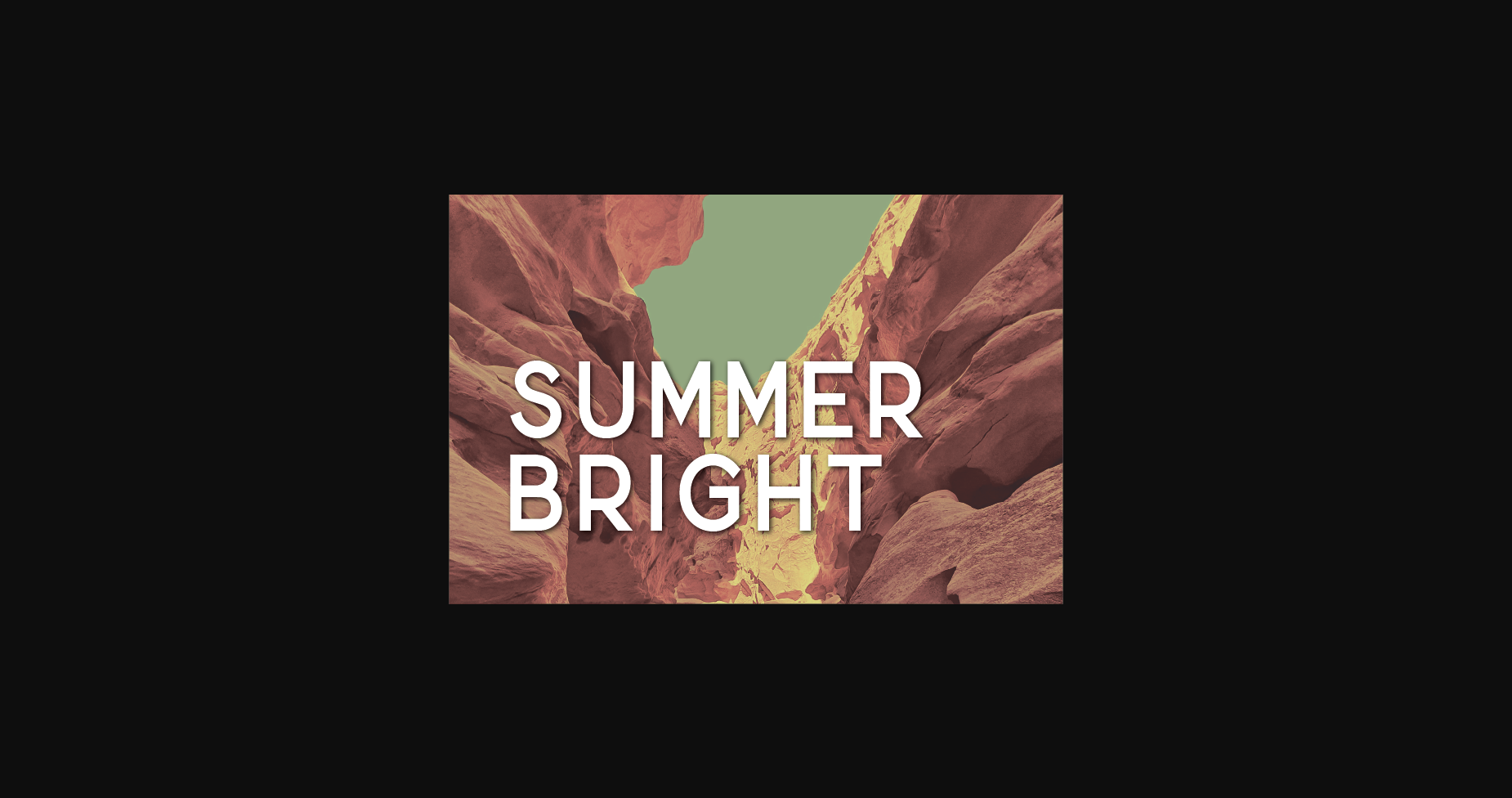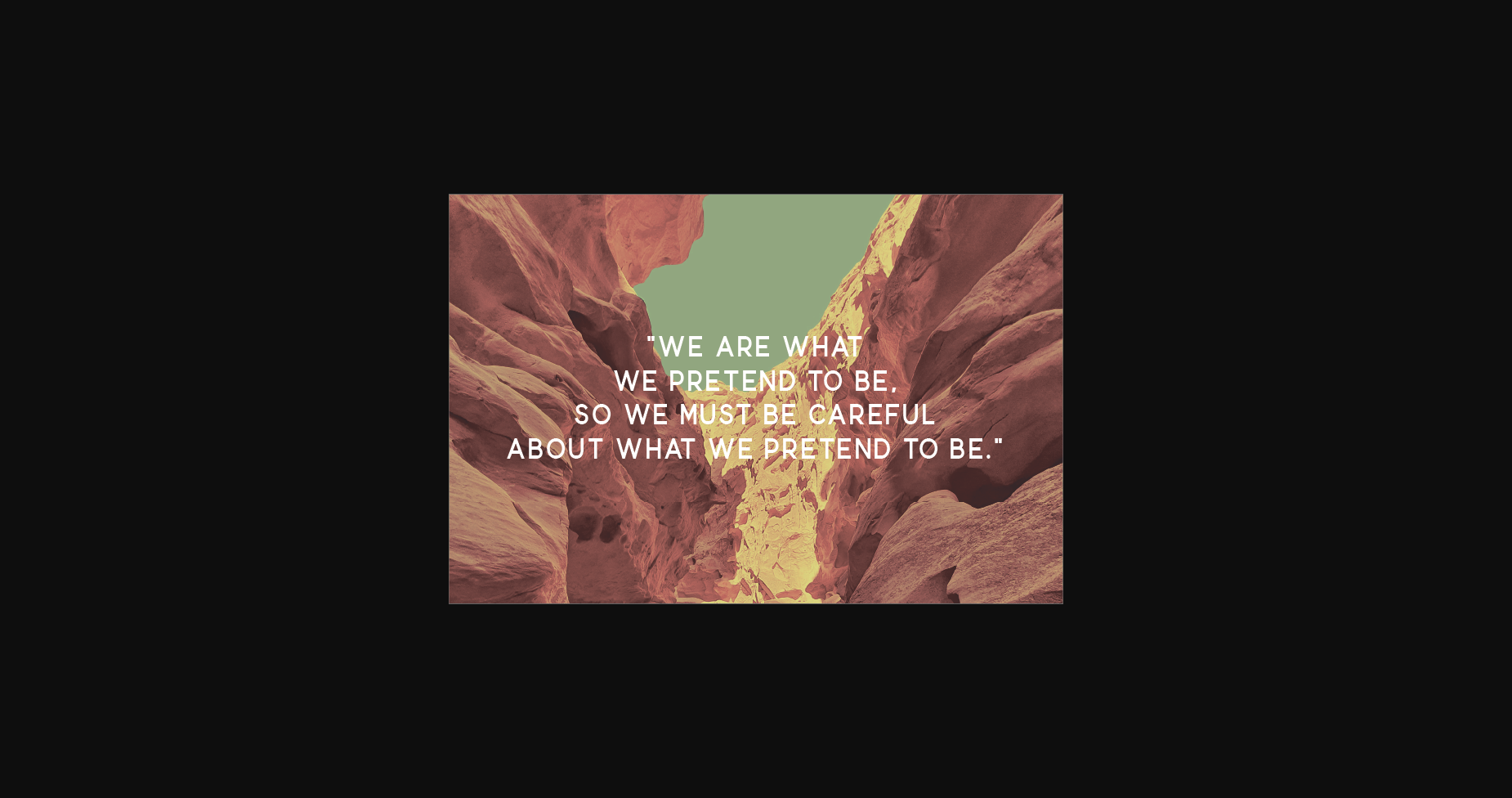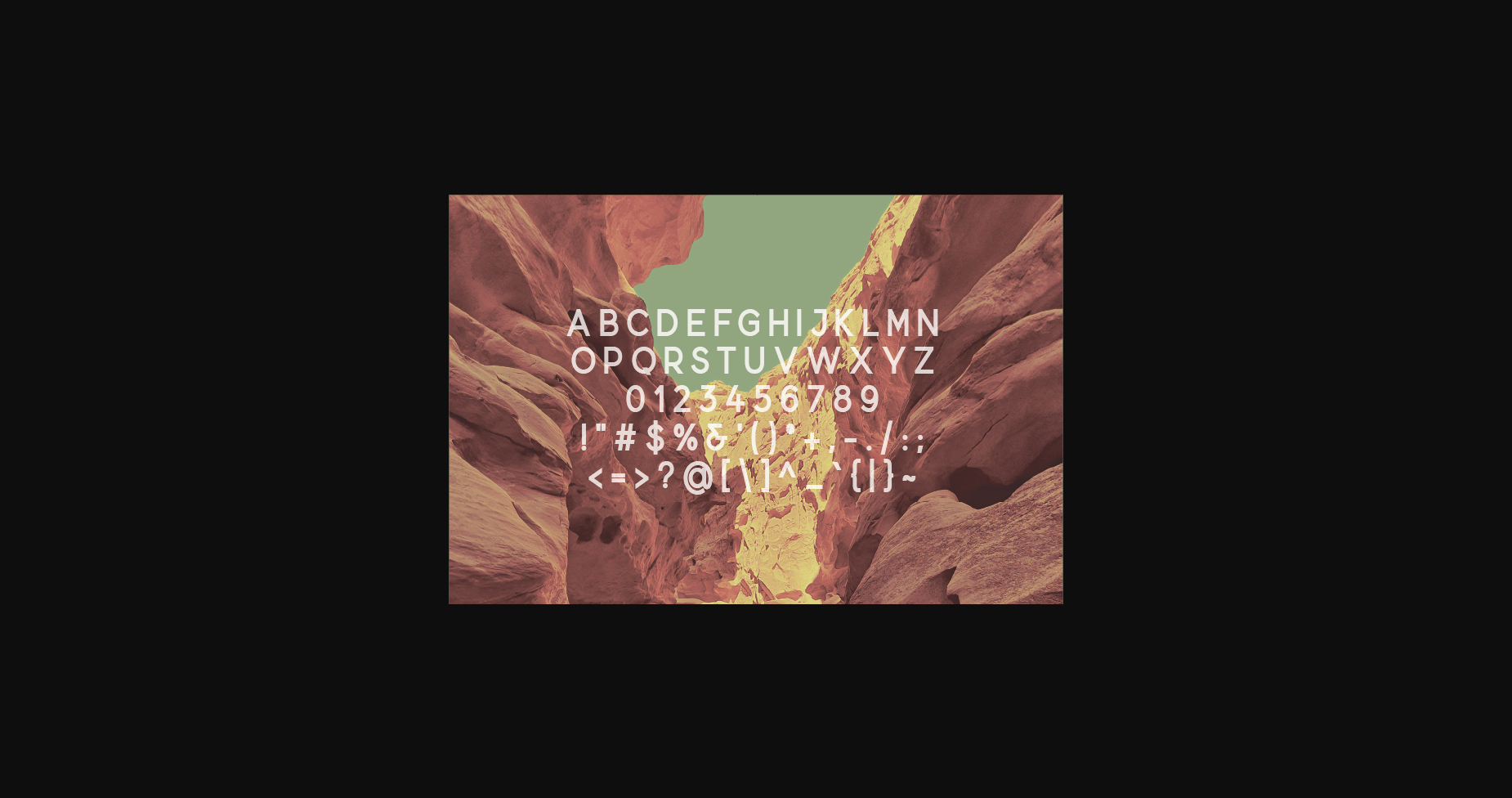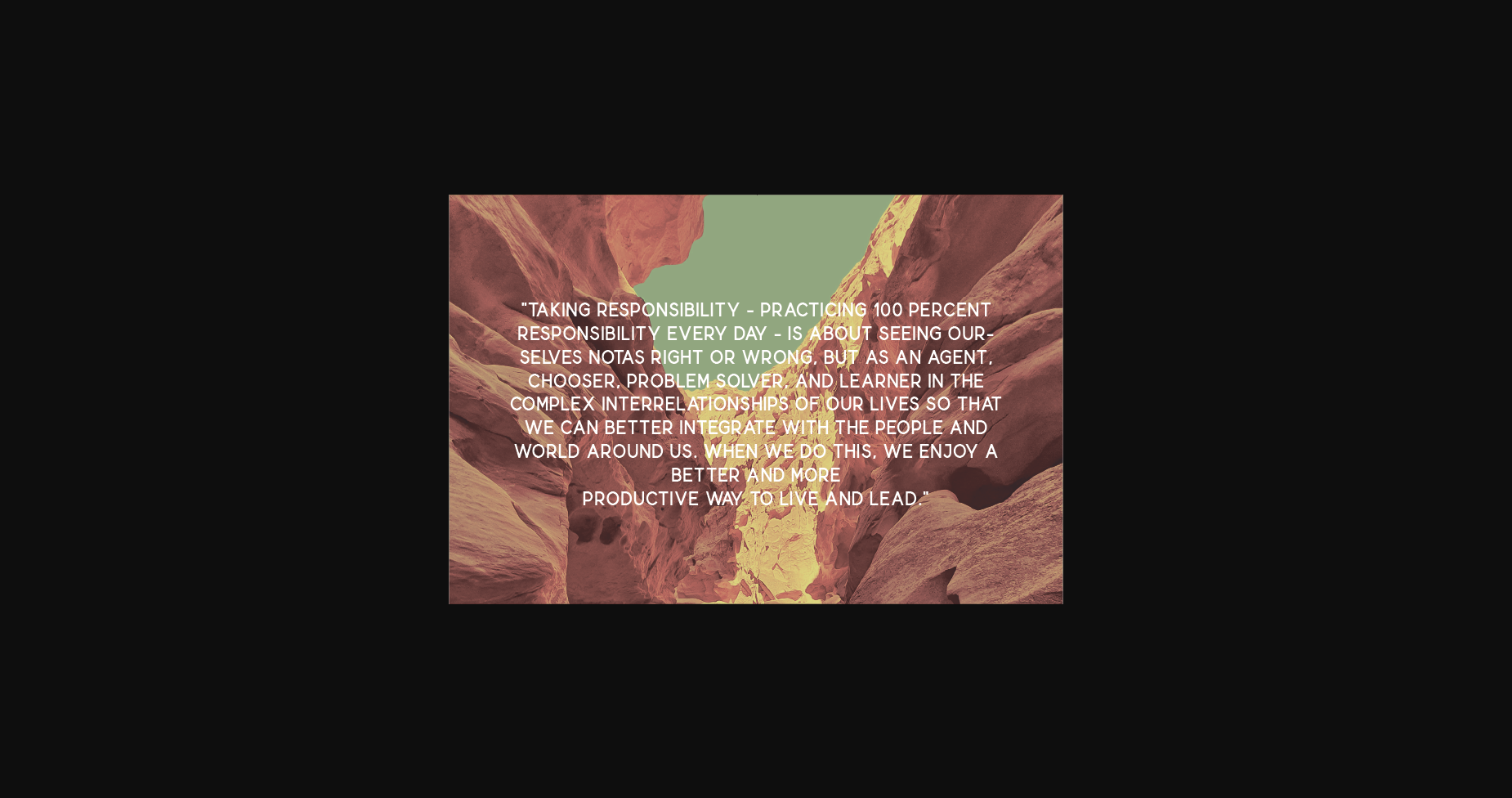
About Summer Bright Font
Introducing Summer Bright, a modern, classy sans serif typeface. A sans serif typeface that contains upper characters, number 0-9 and a range of punctuation and symbols.
An extremely versatile font, perfect for logos, weddings, invitations, quotes, advertisements, print, magazines, and more!